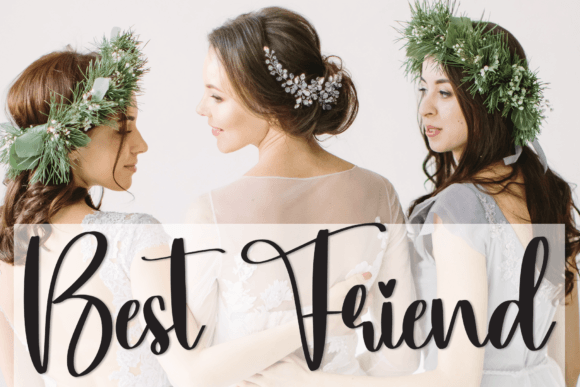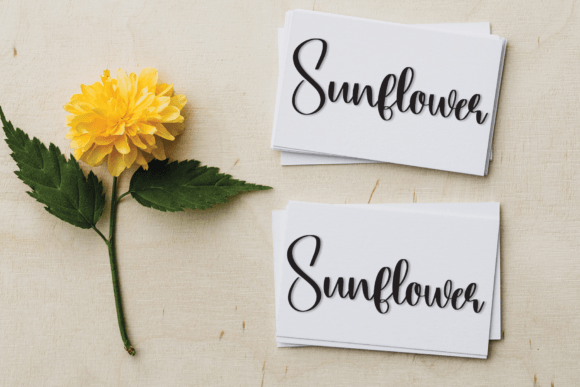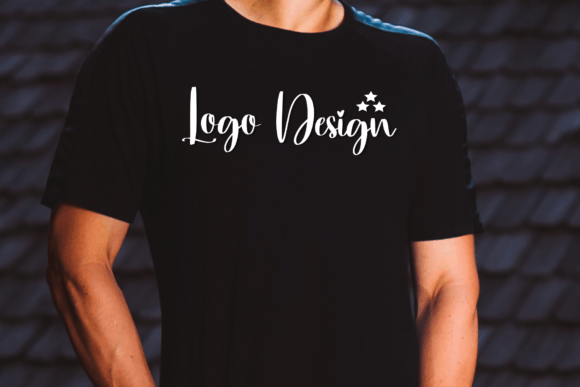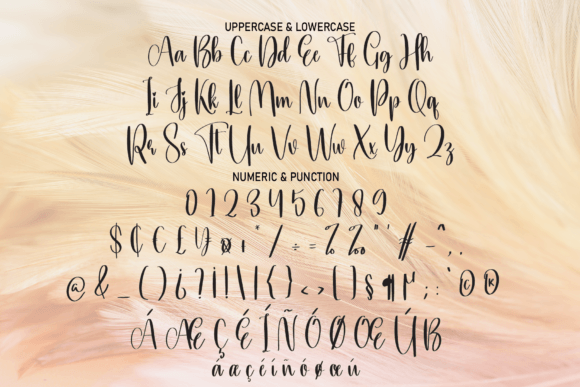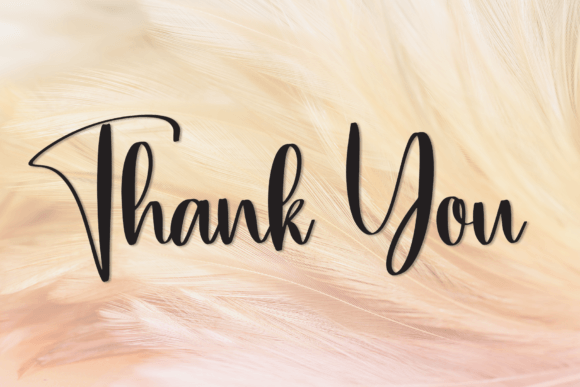
Introduction to Delft Font
Delft is a modern and neat handwritten font.
Key Features of Delft Font
Why Choose Delft Font?
Delft Font offers exceptional quality and versatility, making it a valuable addition to your design toolkit. Whether you’re creating for personal projects or commercial use, Delft Font delivers professional results.